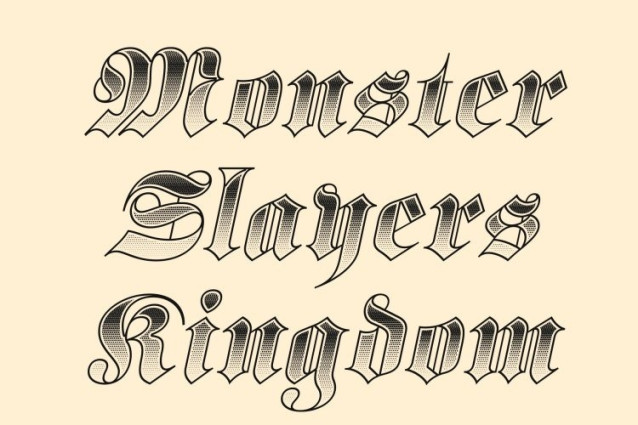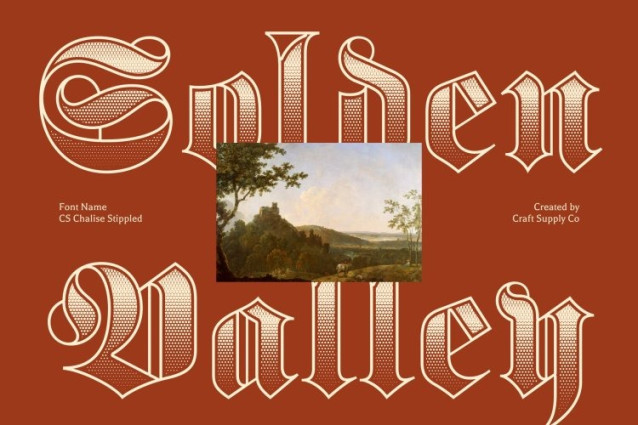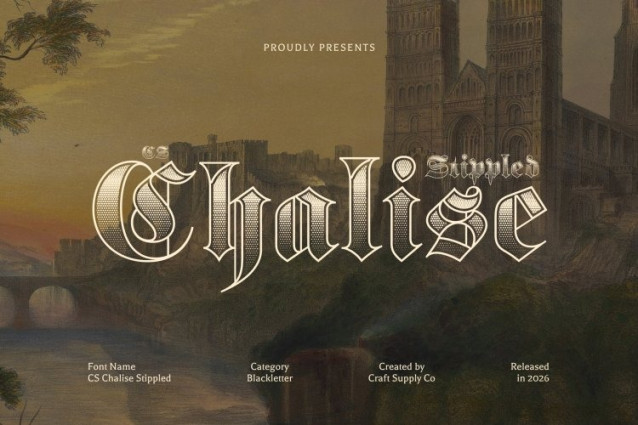
CS Chalise Stippled Font
CS Chalise Stippled Font is a captivating display serif font inspired by the rich tradition of blackletter typography. Its sharp-edged letterforms and bold, angular strokes evoke a powerful medieval atmosphere, blending classic elegance with dramatic character. Enhanced with a stippled texture, the font gains subtle depth and an engraved appearance, adding a handcrafted quality that strengthens its historical charm.
Intricate Design with Textured Detail
Defined by complex ornamentation and distinctive Gothic structure, this font carries the visual richness of traditional blackletter forms. The thick strokes and angular shapes create a sense of authority and heritage, while the stippled effect introduces a fine dotted texture inspired by classic engraving techniques. This layered detail enriches the typography with artistic nuance and visual dimension.
Historic Character with Dramatic Presence
The balance between bold structure and intricate detailing allows this font to stand out with confidence and sophistication. Its dramatic forms convey a strong historical narrative, making the typography feel expressive, authentic, and visually powerful.
Perfect for Elegant and Heritage-Inspired Designs
This is ideal for projects that require a refined historical aesthetic. It works beautifully for luxury invitations, vintage posters, heritage branding, editorial titles, book covers, and themed event materials. With its combination of blackletter tradition and textured stippled artistry, the font delivers a timeless and captivating typographic presence.